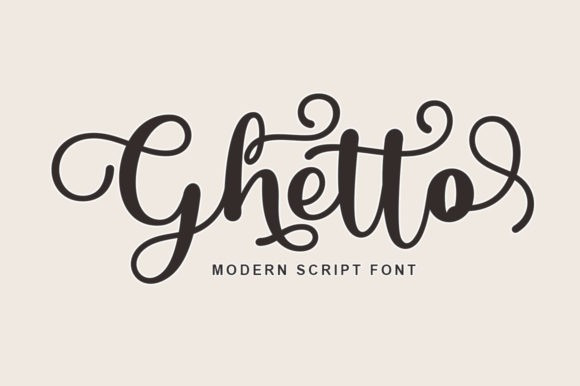
Ghetto Font
Ghetto Script Font is a beautiful handwritten font, expertly designed to become a true favorite. It retains a classy calligraphic influence while feeling contemporary and fresh. Ghetto is PUA encoded which means you can access all glyphs and swashes with ease!